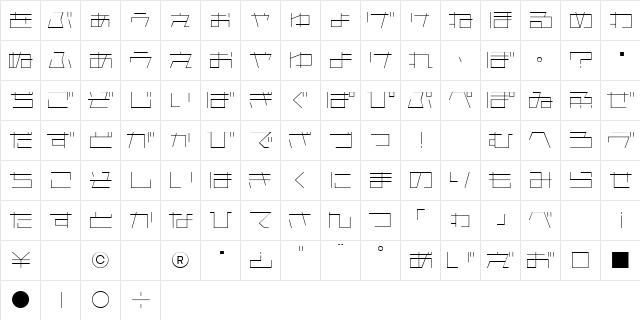
AstraHfsb07LightO Regular
Design Context for AstraHfsb07LightO Typeface
AstraHfsb07LightO takes a measured approach to typography — its balanced proportions and neutral character make it a reliable workhorse for both digital and print work. Its slender proportions lend an understated elegance to any composition.